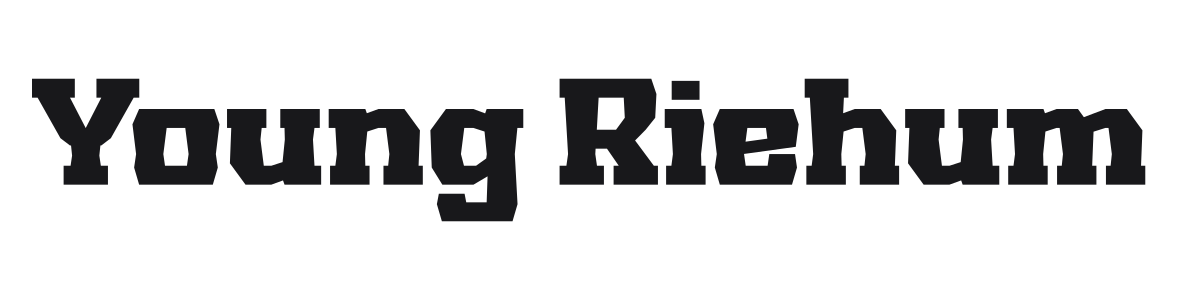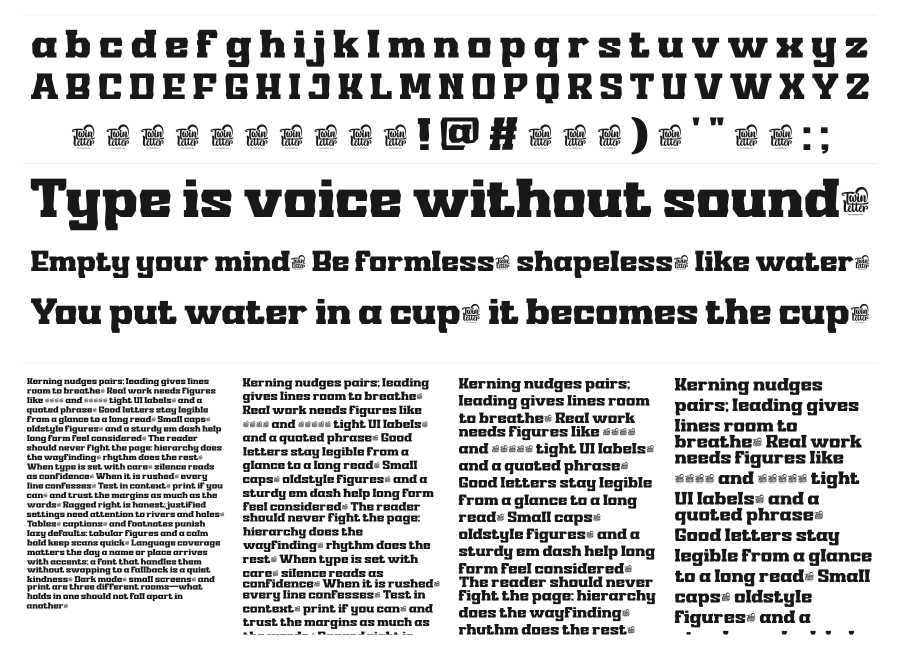
Young Riehum
Young Riehum is a heavy slab-serif built for maximum impact at display sizes. Its thick rectangular serifs and blocky construction draw from wood-type and Americana traditions, with a raw, muscular presence that suits sports, packaging, and editorial headlines. The near-monoweight strokes and wide proportions keep it bold and legible at a glance.